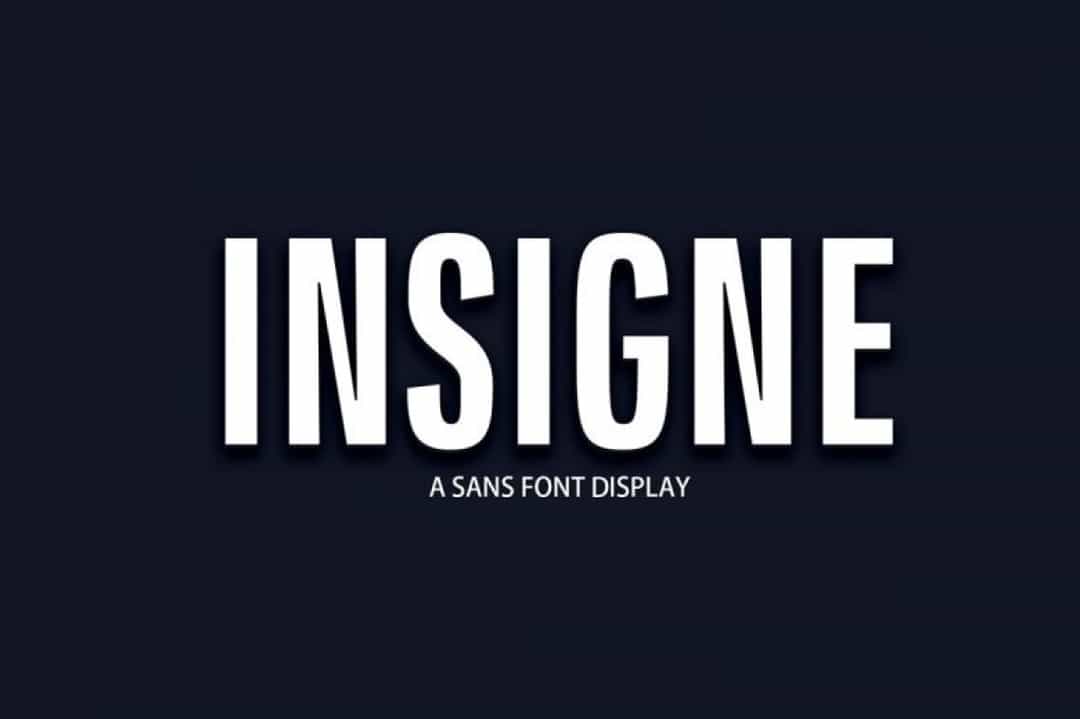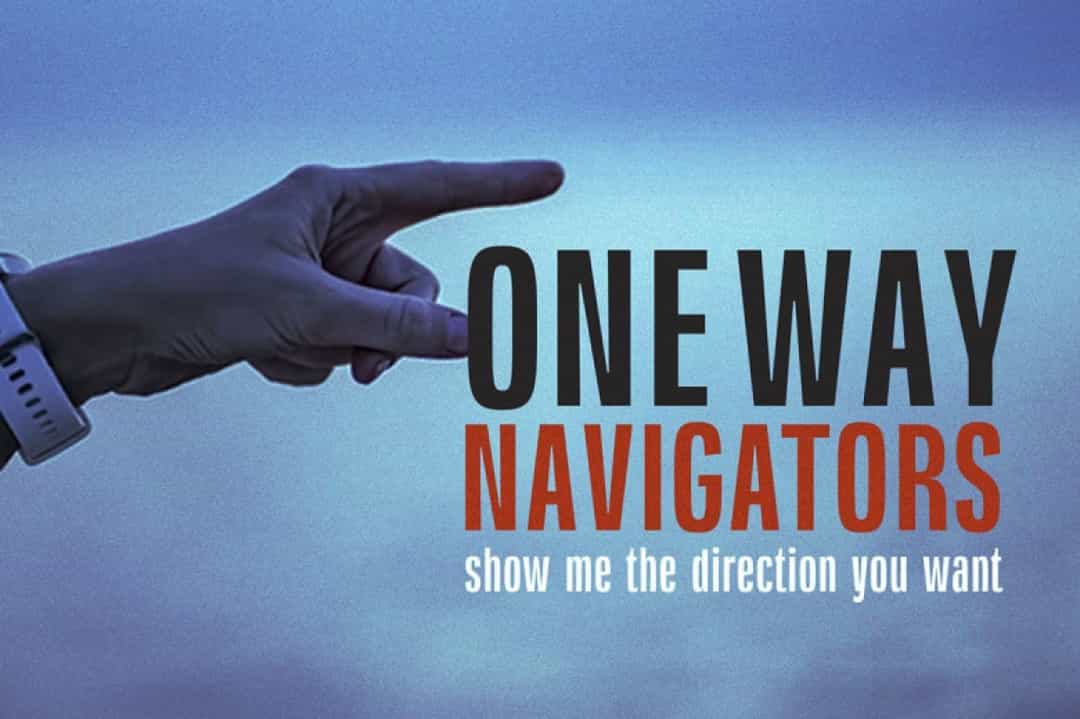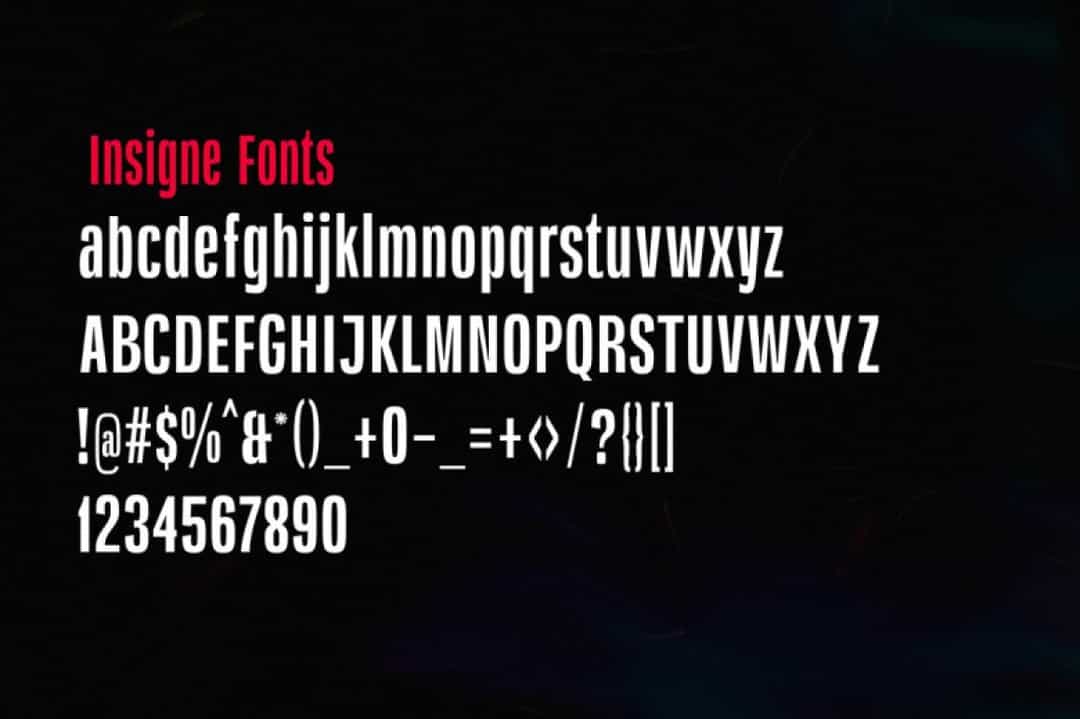
Insigne is a contemporary and enjoyable sans-display font that lives up to its name. The unique way Insigne mixes its parts makes it truly enjoyable to work with! Perfect for magazine design, logo creation, headline writing, posters design, packaging or cards use.